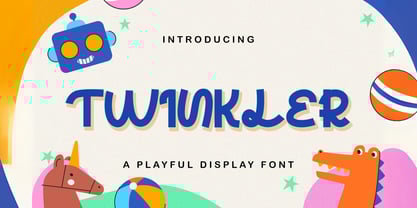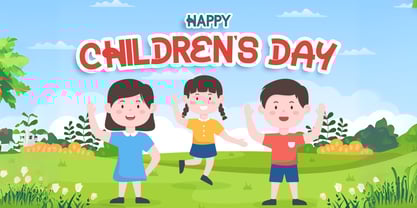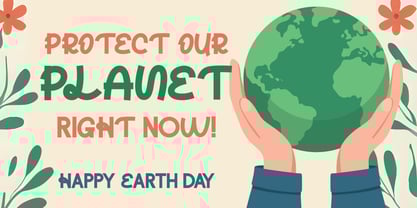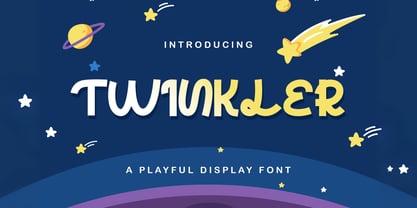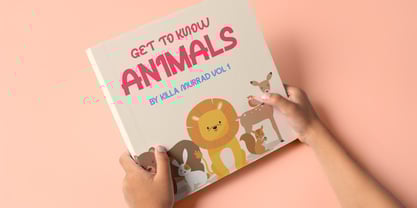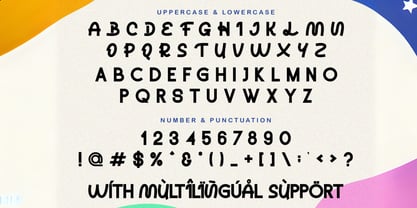
Twinkler
by Omzen Type
The Twinkler Font Family was designed by and published by Omzen Type. Twinkler contains 1 styles. More about this family
Twinkler is an Enjoyed Playful Display Font that will make your designs look modern, unique, and fun. It’s perfect for labels, quotes, posters, DIY projects, branding, packaging, greeting cards, websites, photography overlays, signs, window art, scrapbooking, tags, and more!